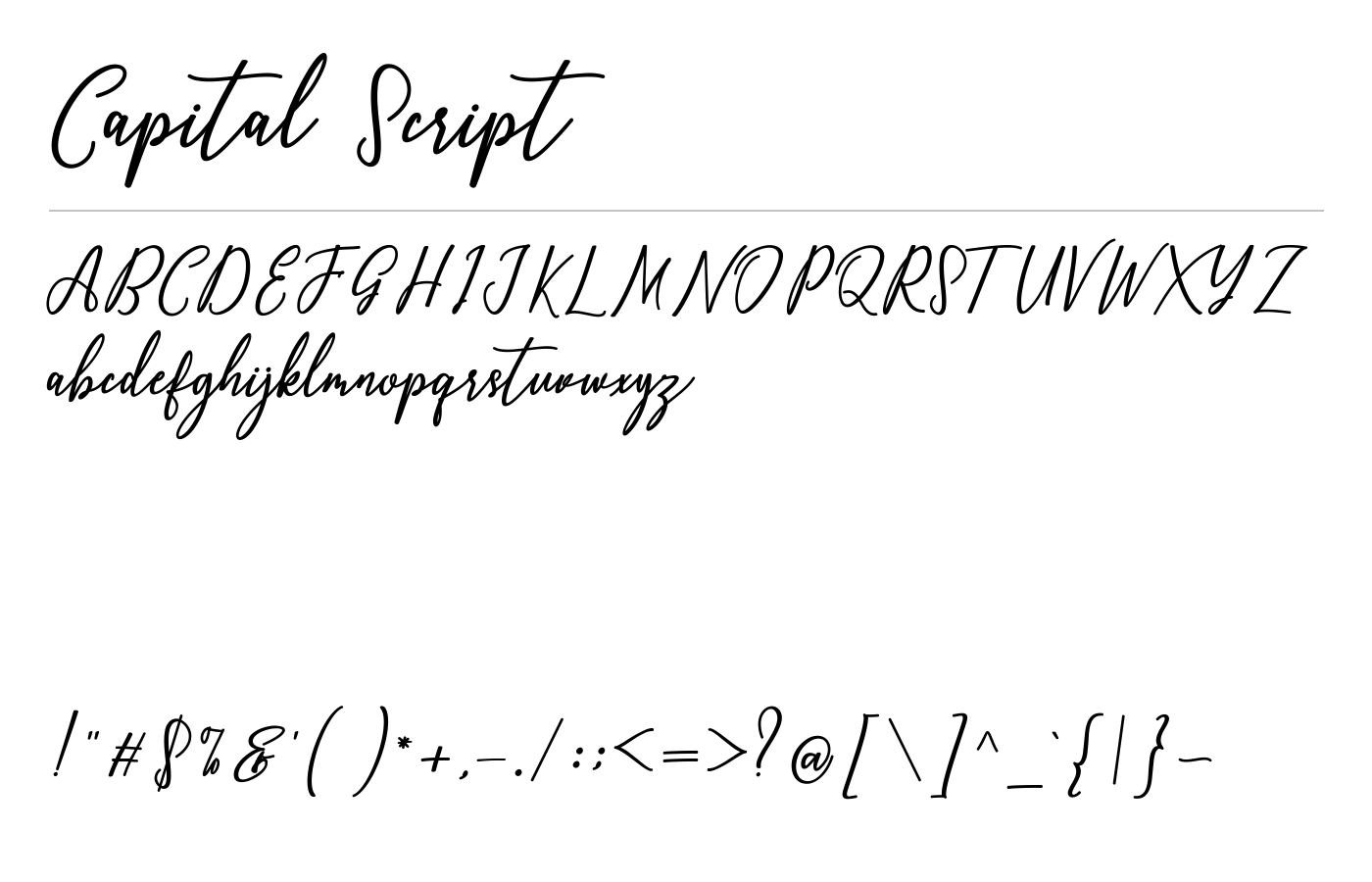
Capital Script Font is a stylish and elegant script typeface that features fluid, hand-drawn letterforms with a natural, cursive flow. Its thin strokes and slightly varied line thickness create a sophisticated yet approachable look, ideal for branding, invitations, and any design seeking a personal and refined touch. This font works beautifully in headlines or logos where a graceful and modern handwritten feel is desired.
Capital Script Font